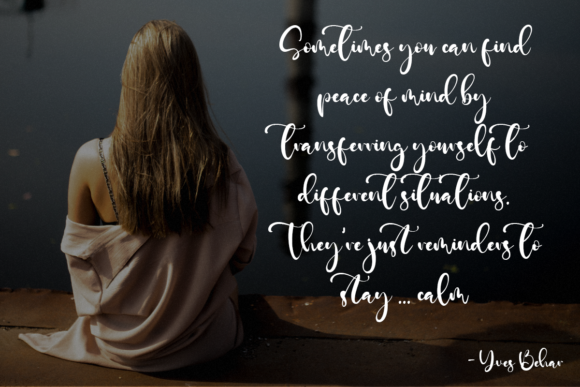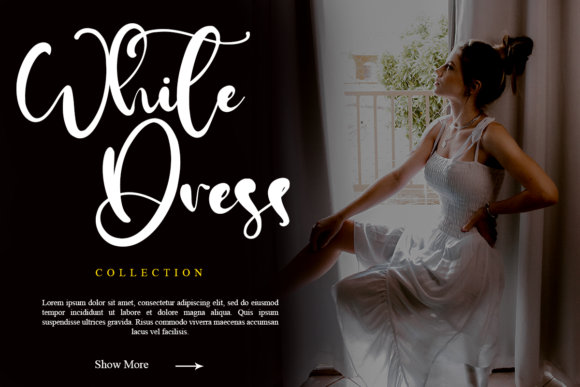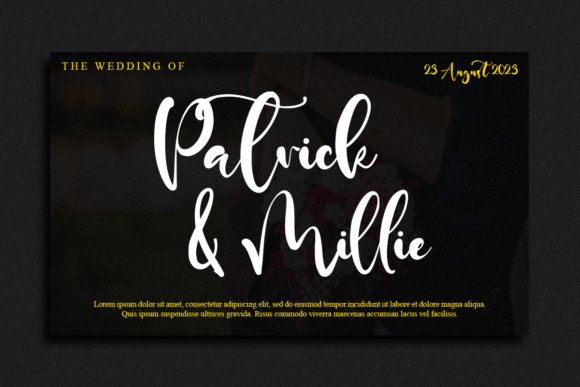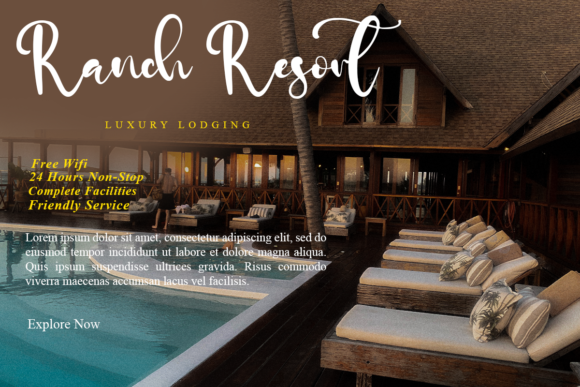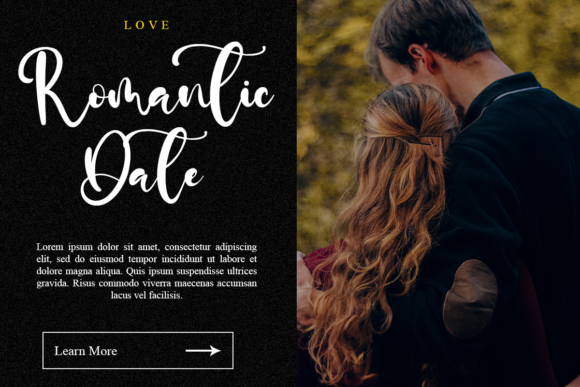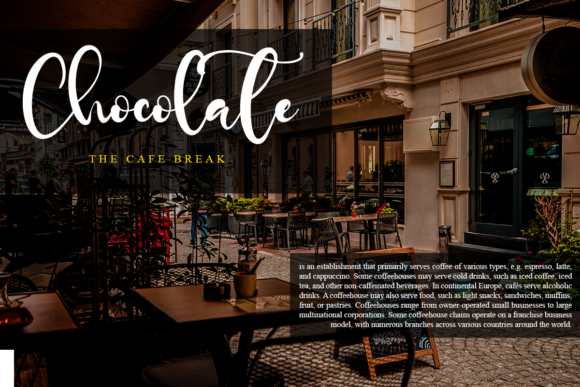
Discover the Elegance of Adam Porter Font: Elevate Your Designs with Flowing Script
Are you on the lookout for a font that adds a touch of sophistication and elegance to your designs? Look no further than the Adam Porter Font. This beautiful, handwritten font is designed to bring a sense of luxury and refinement to any project, making it perfect for designers and crafters who want to create stunning visual content.
What Makes Adam Porter Font Stand Out?
Adam Porter Font is a flowing, elegant, and chic handwritten font that boasts beautiful and well-balanced characters. Its unique design makes it incredibly versatile, allowing it to match a wide pool of designs. Whether you’re working on a branding project, a wedding invitation, or a packaging design, this font is sure to make your ideas come alive.
Key Features of Adam Porter Font
- Flowing Script: The Adam Porter Font features a smooth, flowing script that adds a touch of elegance to any design.
- Elegant and Chic: The font’s elegant and chic design makes it perfect for high-end branding, luxury packaging, and sophisticated marketing materials.
- Well-Balanced Characters: Each character in the font is carefully crafted to ensure perfect balance and harmony, making it easy to read and visually appealing.
- Versatile: The Adam Porter Font can be used in a wide range of designs, from wedding invitations to business cards, and from packaging to advertising.
How to Use Adam Porter Font in Your Designs
Using the Adam Porter Font in your designs is easy. Here are a few tips to get you started:
- Pair it with a bold font: Combine the Adam Porter Font with a bold, sans-serif font to create a striking contrast that adds visual interest to your design.
- Use it for headings: The Adam Porter Font is perfect for headings and titles, adding a touch of elegance and sophistication to your design.
- Experiment with colors: Try pairing the Adam Porter Font with different colors to create a unique and eye-catching design.
Benefits of Using Adam Porter Font
There are many benefits to using the Adam Porter Font in your designs. Here are a few:
- Increased elegance: The Adam Porter Font adds a touch of elegance and sophistication to any design, making it perfect for high-end branding and luxury marketing materials.
- Improved readability: The font’s well-balanced characters and flowing script make it easy to read, even at small sizes.
- Versatility: The Adam Porter Font can be used in a wide range of designs, making it a great addition to any designer’s toolkit.
Who Can Benefit from Using Adam Porter Font?
The Adam Porter Font is perfect for a wide range of designers and crafters, including:
- Graphic designers: The Adam Porter Font is a great addition to any graphic designer’s toolkit, adding a touch of elegance and sophistication to any design.
- Wedding planners: The font’s elegant and chic design makes it perfect for wedding invitations, wedding websites, and other wedding-related marketing materials.
- Crafters: The Adam Porter Font is also perfect for crafters who want to add a touch of elegance and sophistication to their handmade products.
In conclusion, the Adam Porter Font is a beautiful, elegant, and chic handwritten font that is perfect for designers and crafters who want to add a touch of sophistication and luxury to their designs. With its flowing script, well-balanced characters, and versatile design, this font is sure to make your ideas come alive. Whether you’re working on a branding project, a wedding invitation, or a packaging design, the Adam Porter Font is a great choice.